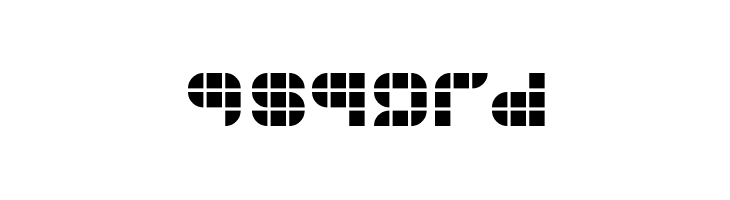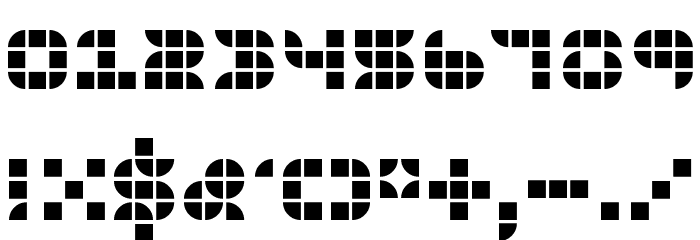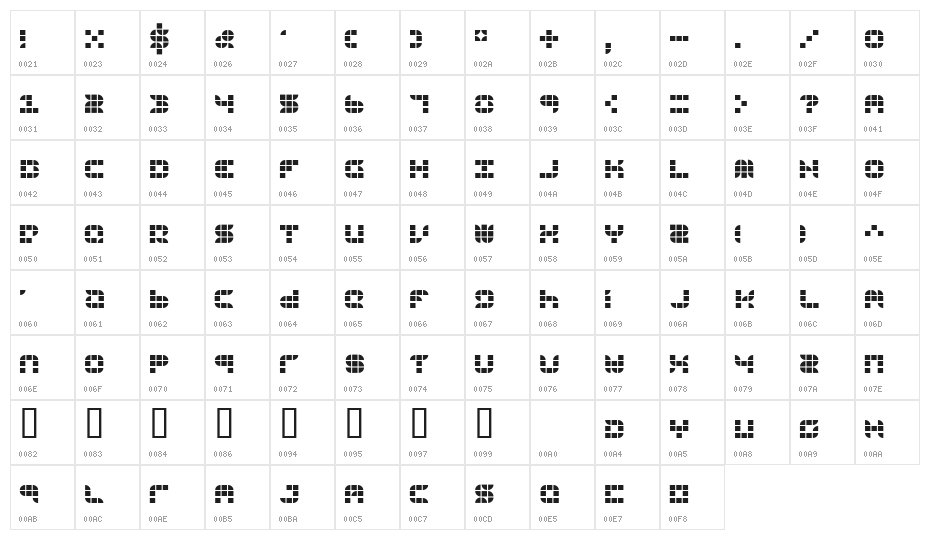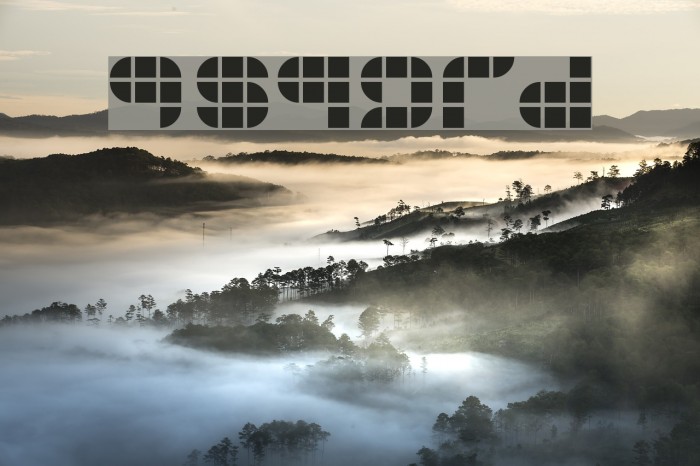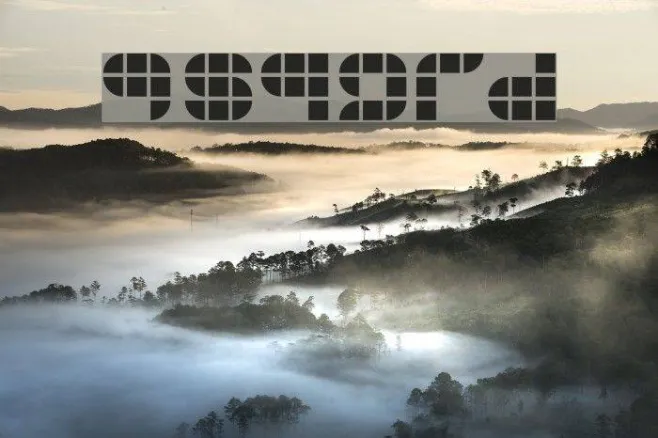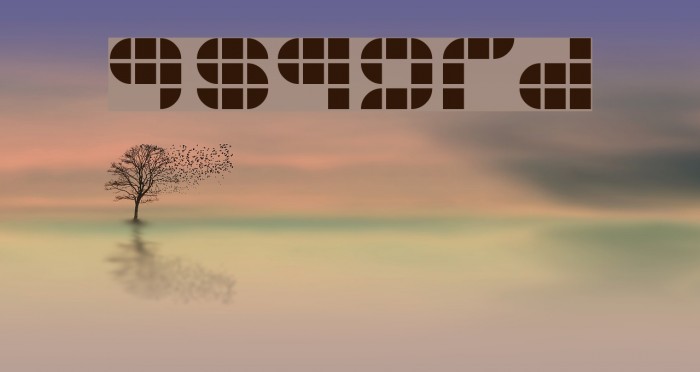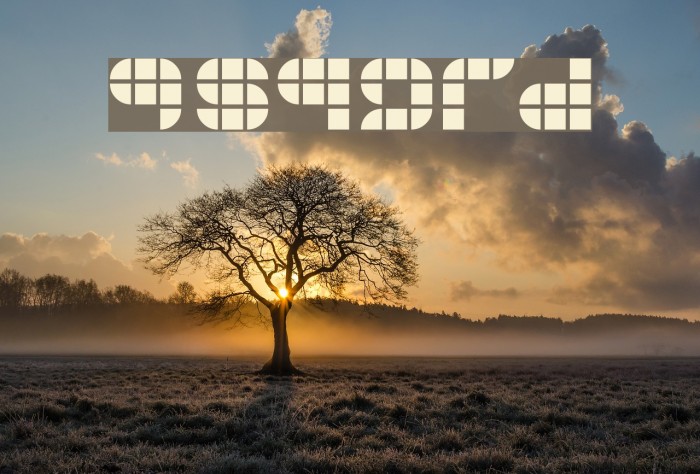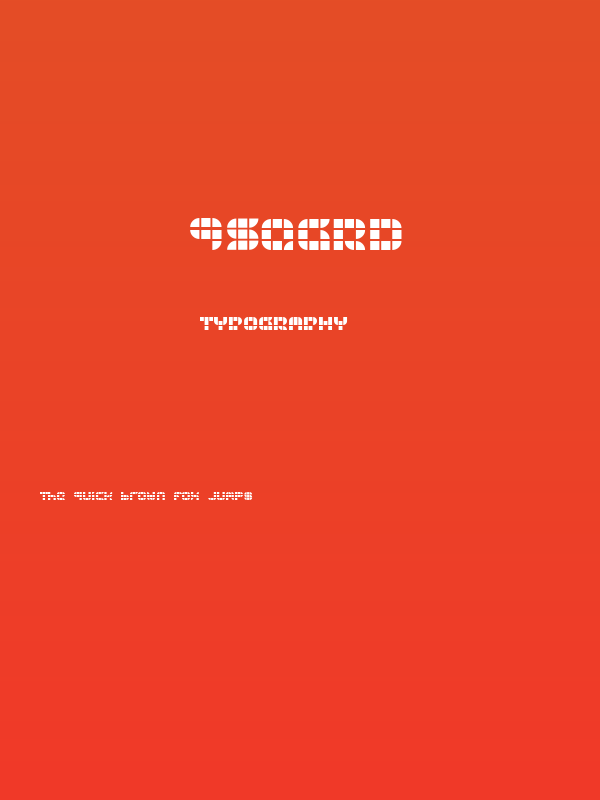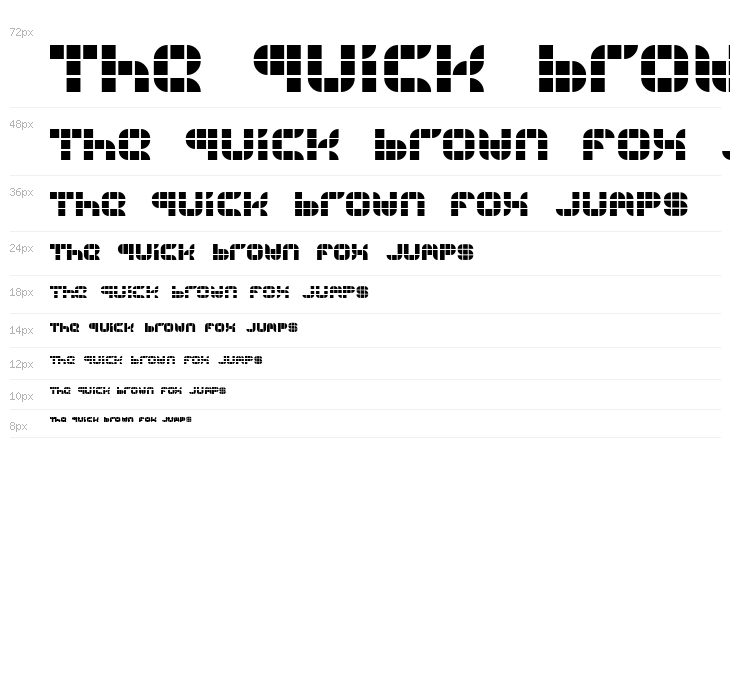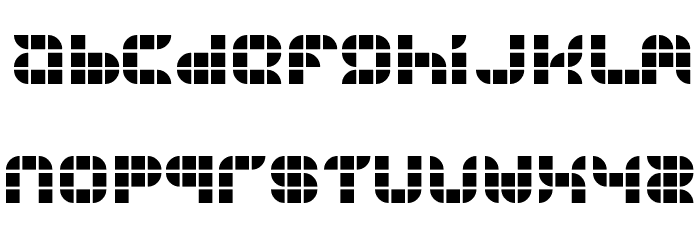
9sqgrd Font
9sqgrd Description
This font features a unique geometric design, where each character is composed of a grid-like pattern of squares. The bold, blocky appearance gives it a distinct and modern look, making it stand out in any design. The characters are uniform in height and width, creating a cohesive and structured appearance. The use of negative space within the grid adds an interesting visual element, enhancing its decorative appeal. This font is ideal for projects that require a contemporary and artistic touch, such as posters, logos, or digital artwork. Its boldness ensures readability while maintaining a stylish aesthetic.
| Proposed Projects | Ideal for posters, logos, digital artwork, and any project needing a modern, artistic touch. |